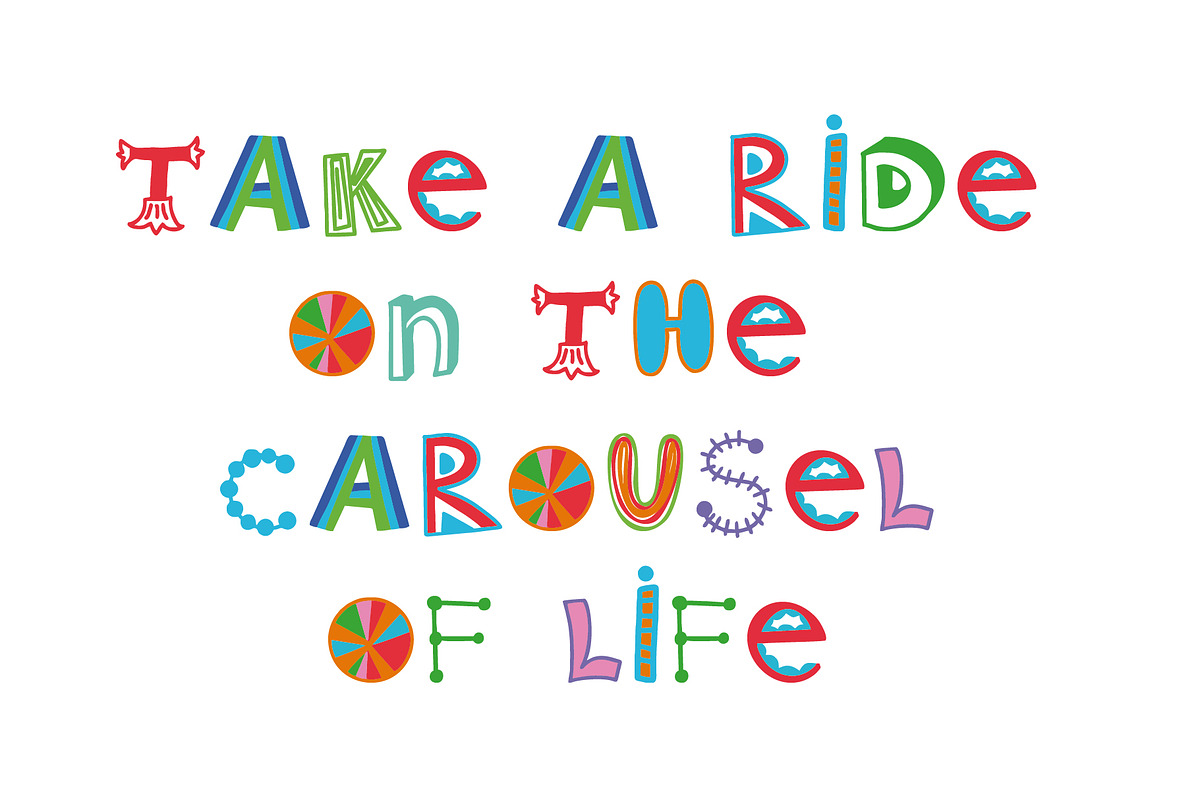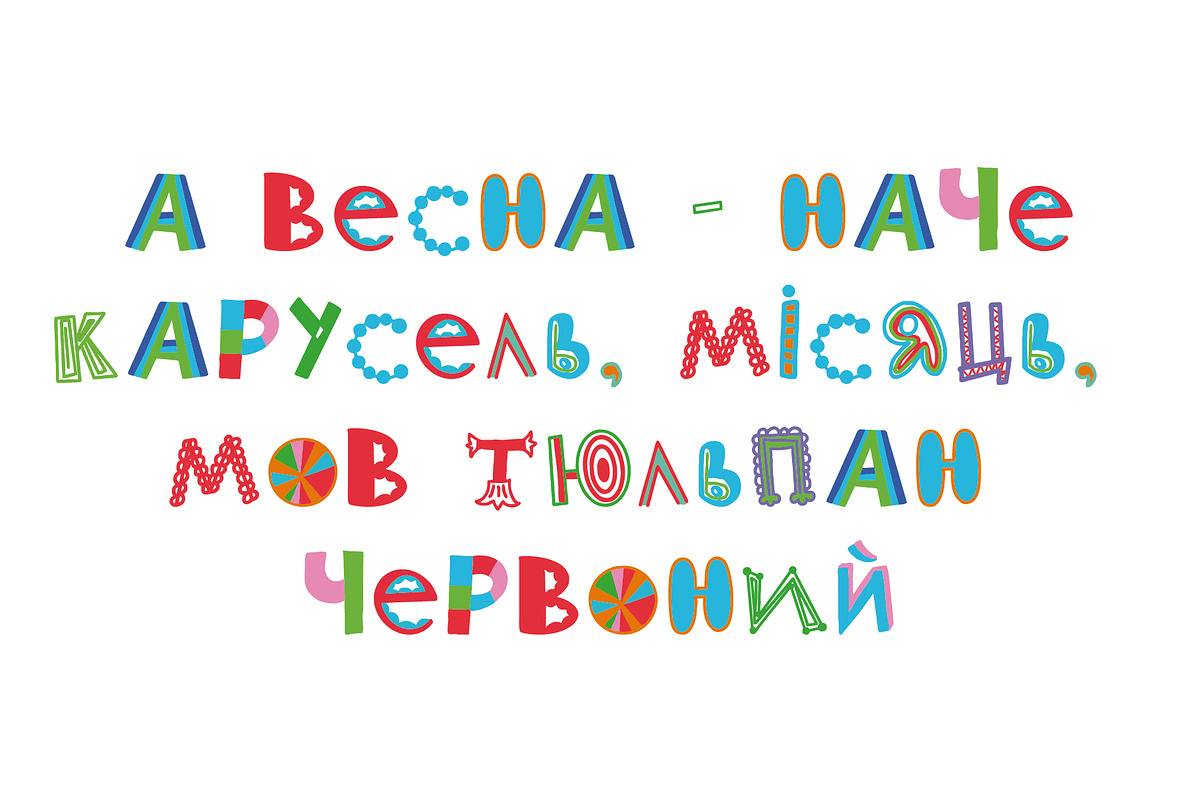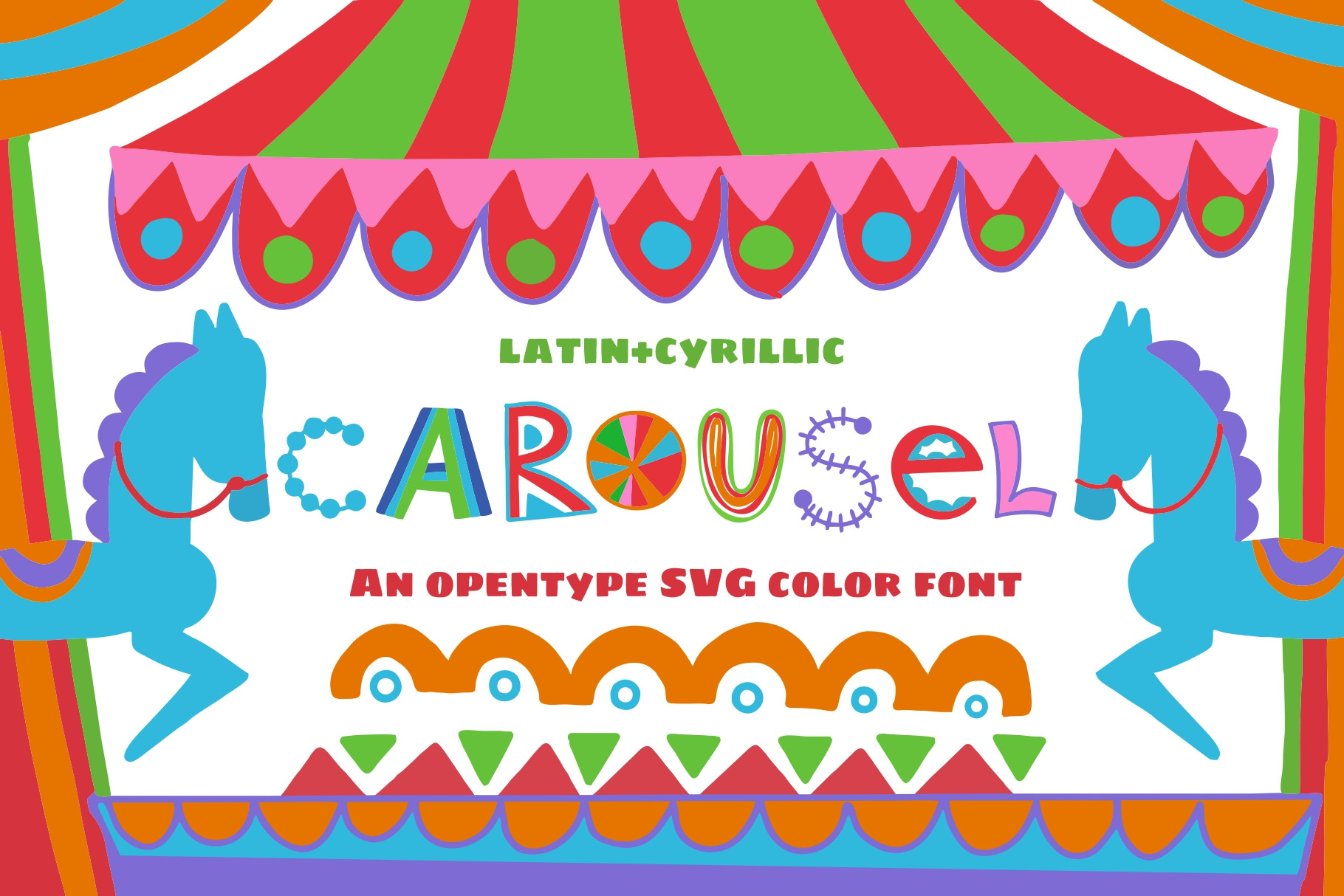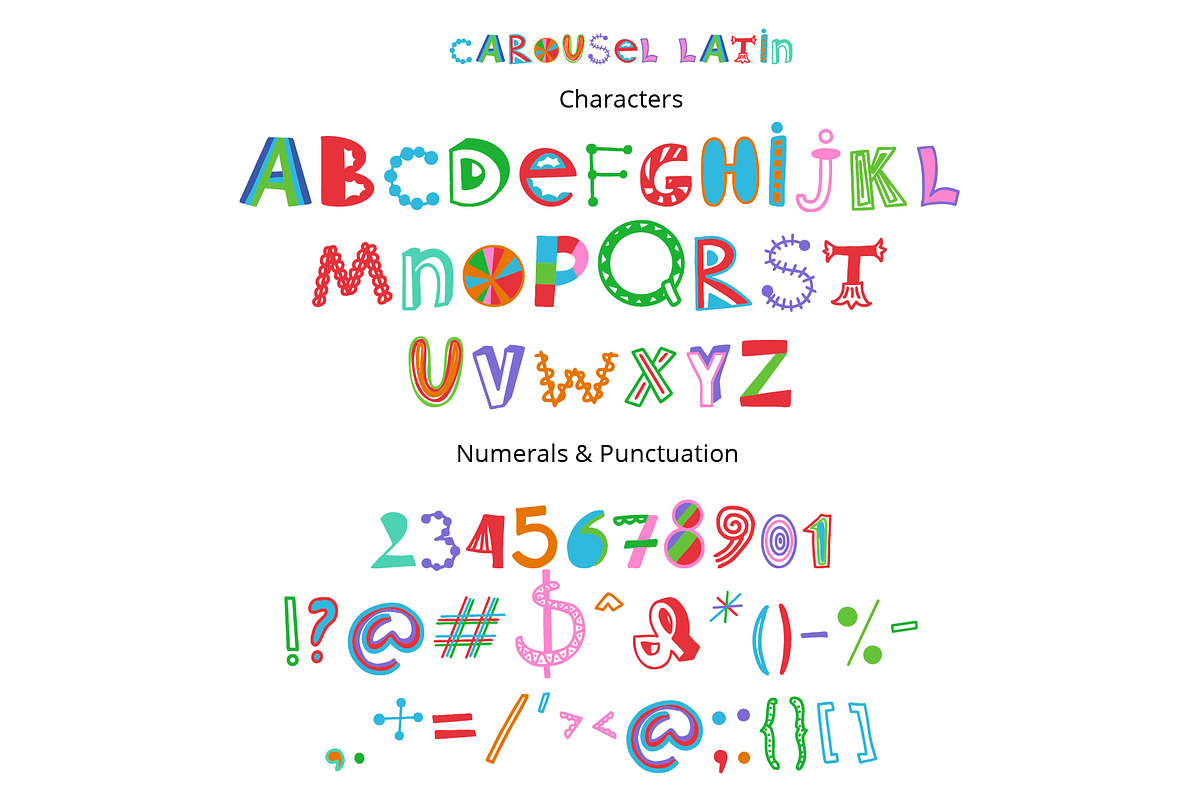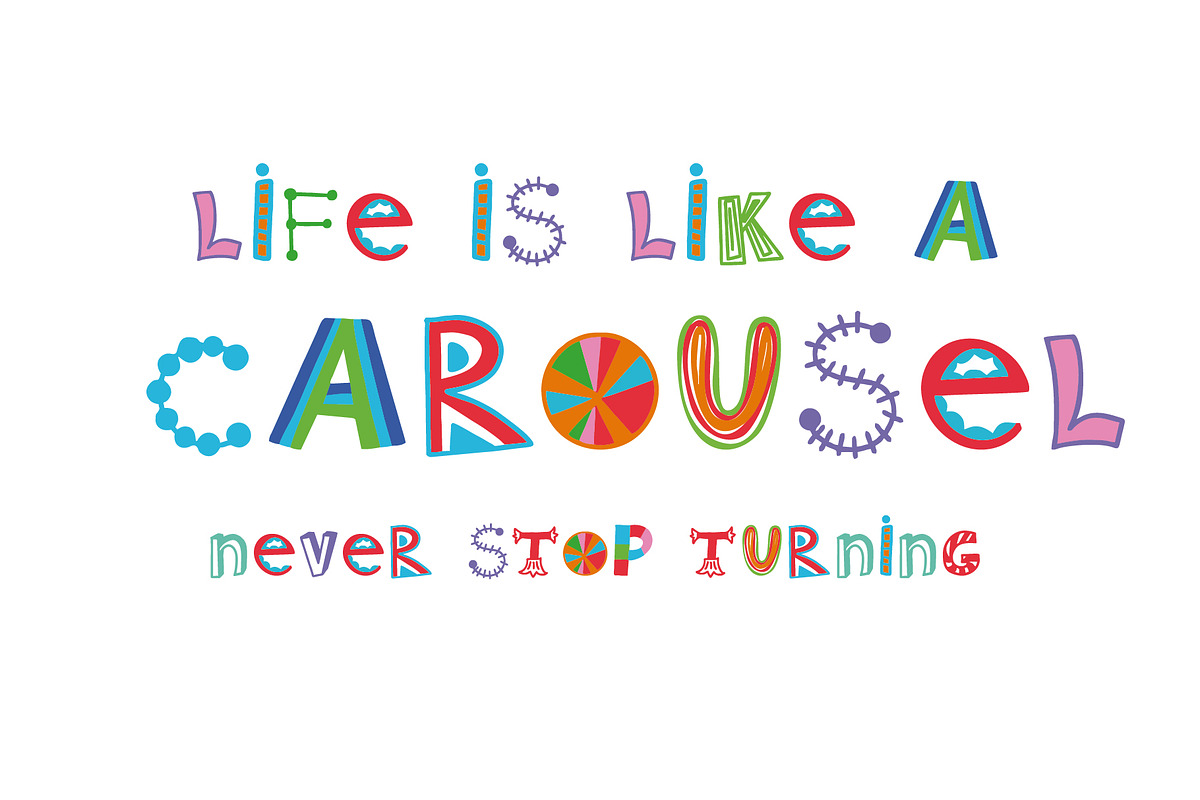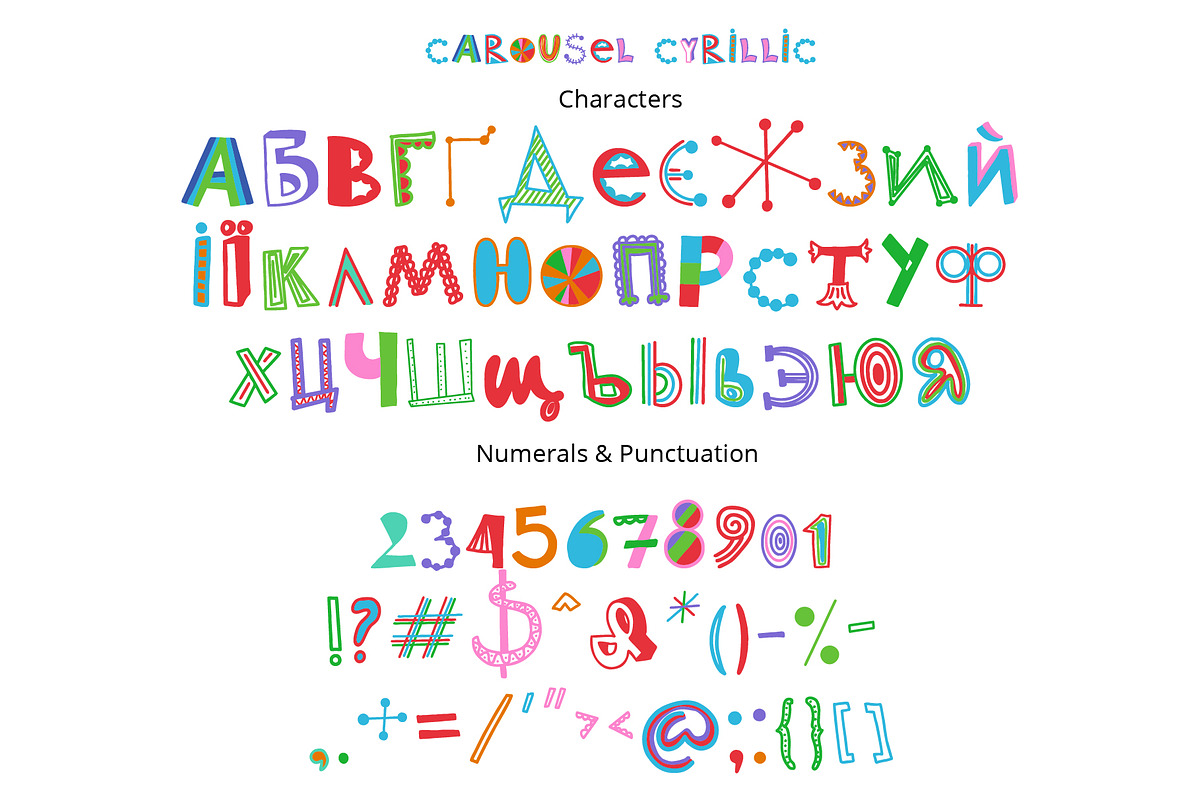
Carousel color font
Carousel - color OpenType-SVG font with Latin and Cyrillic letters! It's a fun and cute font! This font work nicely for all sorts of things including t-shirt design, typographic art, social media images and so much more!
Font features:
Standard characters A-Z, 0-9,and punctuation + classic version for the Latin Basic and Western European set, Cyrillic А-Я set. Thanks and Enjoy!